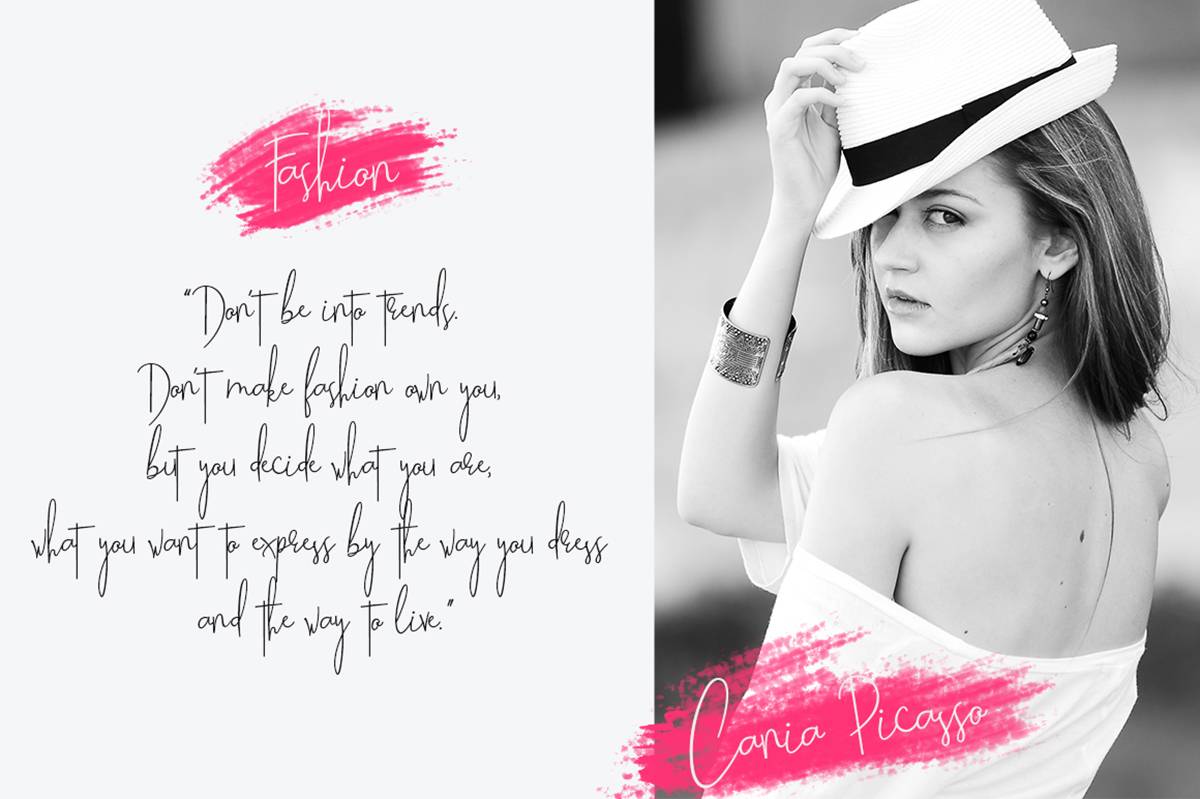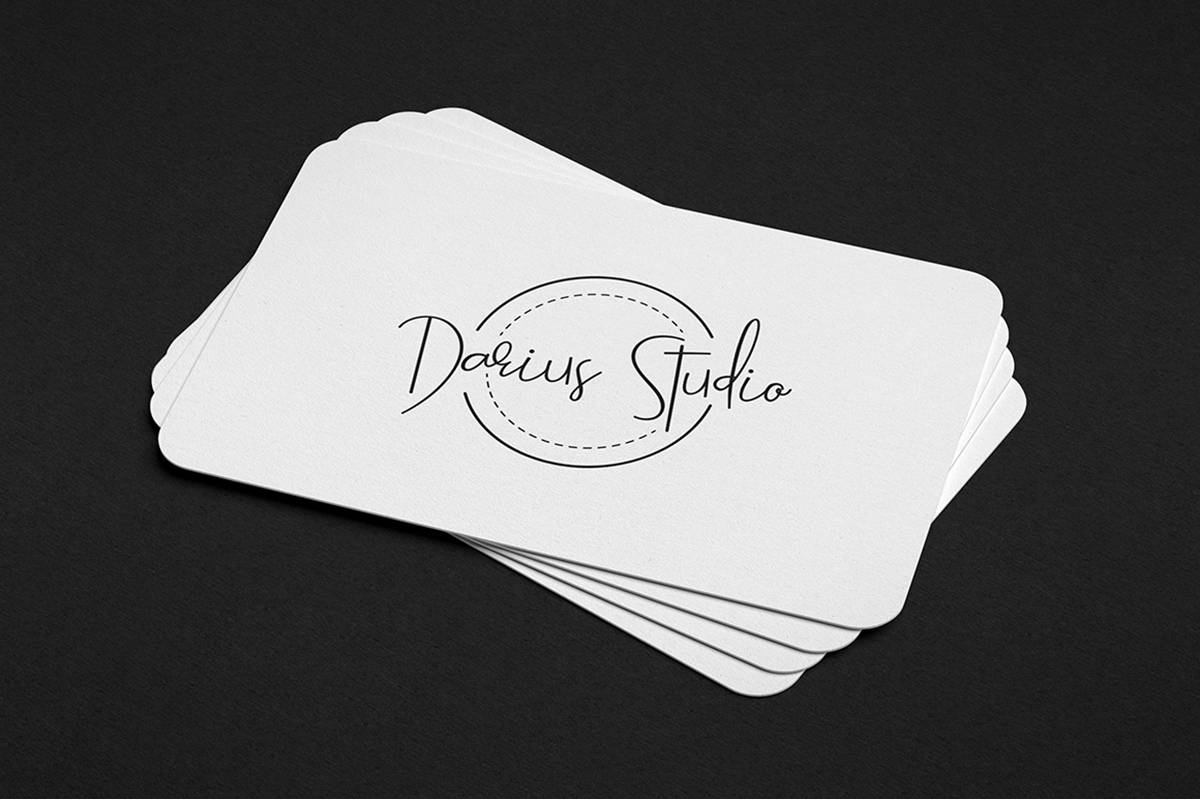
Beatrix Signature Font is a delicate, handwritten script with a light weight and elegant, airy strokes that mimic natural handwriting with slightly irregular, tall letterforms. Its thin, flowing lines and unique letter shapes give it a personal, artistic feel, making it ideal for branding, invitations, and creative projects where a refined yet casual touch is desired. This font works best in logos, social media graphics, and fashion or lifestyle designs that need a sophisticated but approachable style.
Beatrix Signature Font
About Beatrix Signature Font
| Font family | Beatrix Signature Font |
| Release date | 2018-01-24 |
| Designer | Motokiwo a.k.a Anton Cahyono |